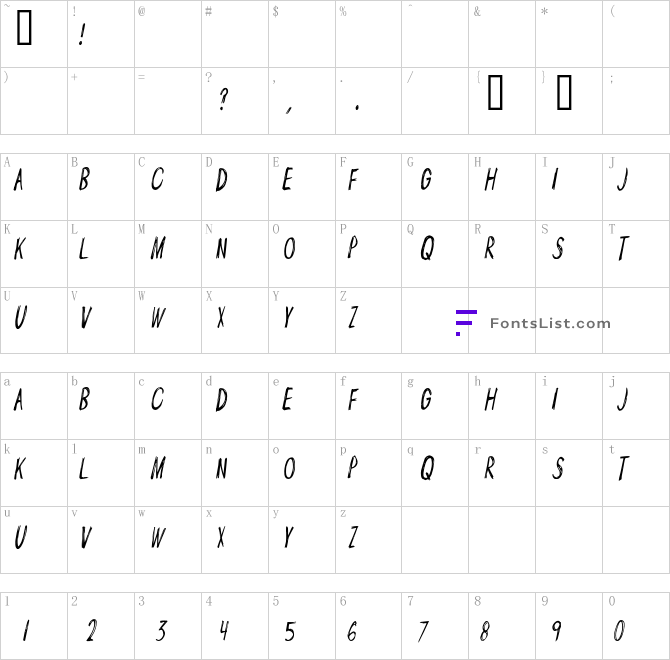
- Font Name:Angry Mob
AngryMob-Regular.otf is a very beautiful artistic font, AngryMob-Regular.otf is widely used in the design and printing of various books and pictures,AngryMob-Regular.otf has a strong visual impact,AngryMob-Regular.otf is a commonly used font in newspapers, magazines and books, and is used in posters, e-commerce Poster design, store design, logo design, font design and other fields.AngryMob-Regular.